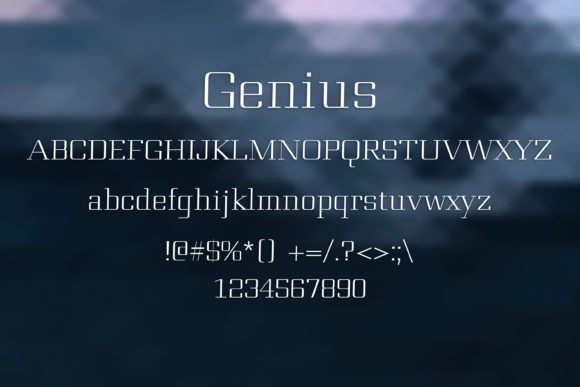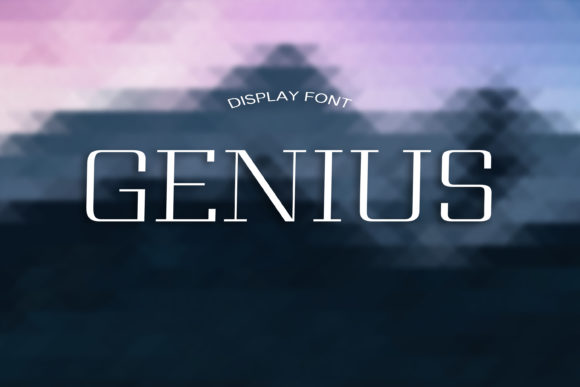
Genius Font: Elevate Your Design with Elegance and Sophistication
In the world of typography, fonts play a crucial role in conveying the tone and personality of a design project. For designers and crafters seeking to add a touch of elegance and sophistication to their work, the Genius Font is an excellent choice. This clean, light, and elegant display font boasts gorgeous serifs that will instantly elevate your designs and give them a distinct editorial feel.
What Makes Genius Font Stand Out?
The Genius Font is designed to make a statement. Its sleek and refined aesthetic is perfect for a wide range of design projects, from luxury branding and editorials to packaging and digital media. The font’s gorgeous serifs add a level of sophistication and refinement, making it ideal for designers who want to create high-end designs that exude elegance and poise.
Key Features of Genius Font
• Clean and Light Design: The Genius Font features a clean and light design that ensures excellent readability, even at small font sizes.
• Elegant Serifs: The font’s gorgeous serifs add a touch of elegance and sophistication to any design project.
• Display Font: The Genius Font is a display font, making it perfect for headlines, titles, and other prominent design elements.
• Editorial Feel: The font’s classic and refined aesthetic gives it a distinct editorial feel that’s perfect for magazines, newspapers, and other publications.
Use Cases for Genius Font
The Genius Font is versatile and can be used in a variety of design projects, including:
• Luxury Branding: The font’s elegant and sophisticated aesthetic makes it perfect for luxury brands seeking to create a high-end image.
• Editorials and Magazines: The Genius Font’s classic and refined aesthetic makes it ideal for editorials, magazines, and newspapers.
• Packaging Design: The font’s clean and light design makes it perfect for packaging design, where readability and visual appeal are crucial.
• Digital Media: The Genius Font can be used in digital media, such as website headers, social media graphics, and more.
Why Choose Genius Font?
With so many fonts available, why choose the Genius Font? Here are a few compelling reasons:
• Unique Aesthetic: The Genius Font offers a unique and distinctive aesthetic that’s sure to set your designs apart.
• High Readability: The font’s clean and light design ensures excellent readability, even at small font sizes.
• Versatility: The Genius Font can be used in a wide range of design projects, from luxury branding to digital media.
In conclusion, the Genius Font is an excellent choice for designers and crafters seeking to add a touch of elegance and sophistication to their work. With its clean, light, and elegant design, gorgeous serifs, and versatility, this font is sure to elevate your designs and give them a distinct editorial feel. Whether you’re working on a luxury branding project, editorial, or packaging design, the Genius Font is a great choice.